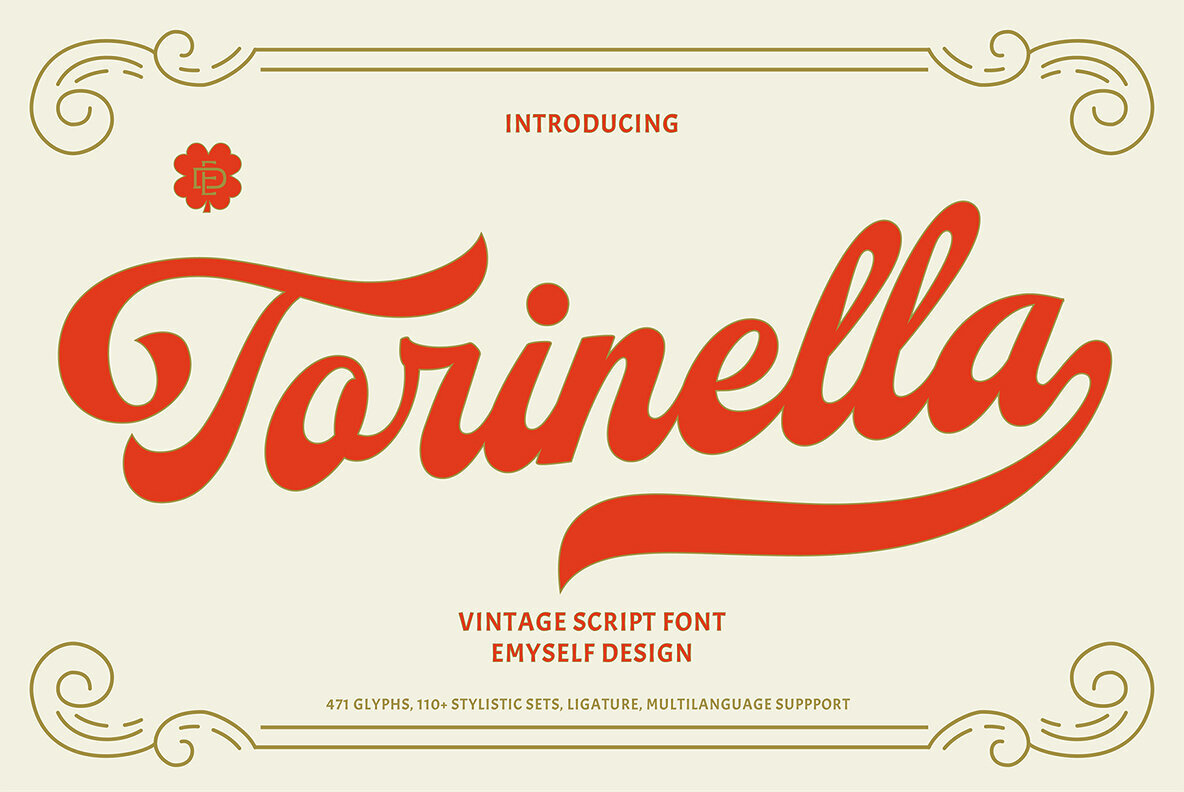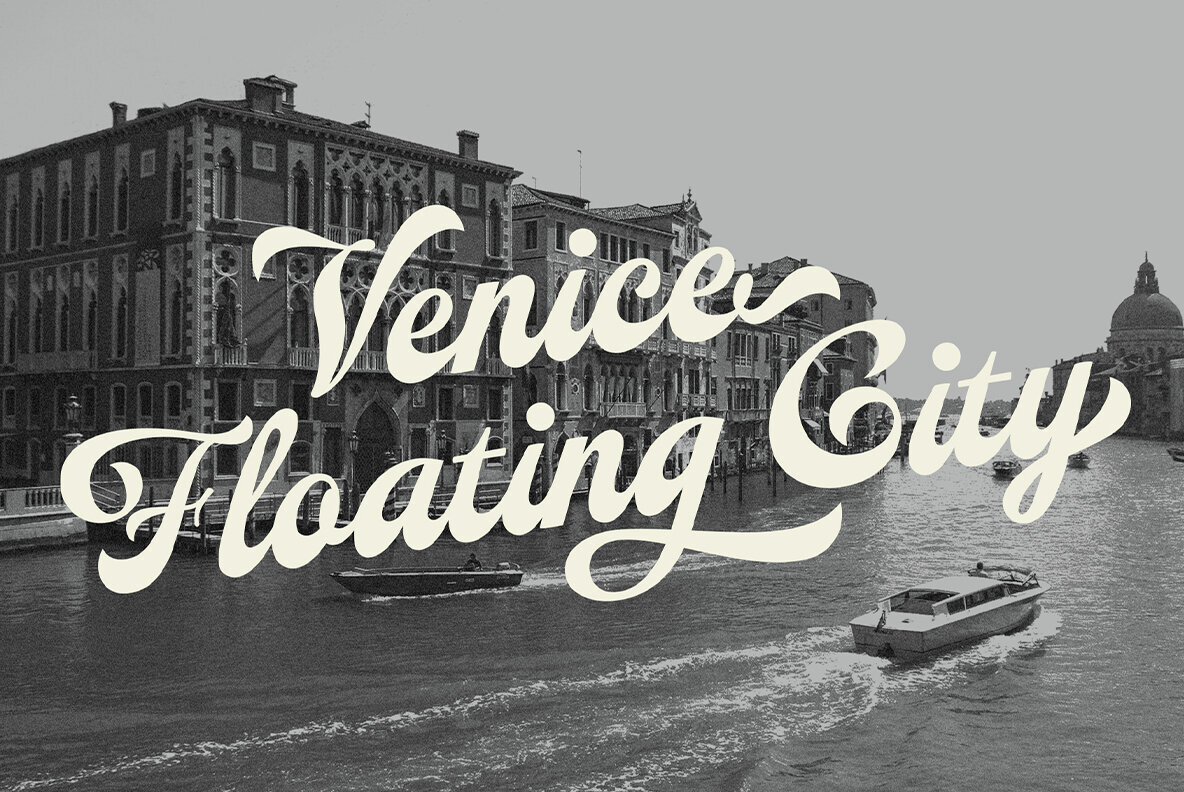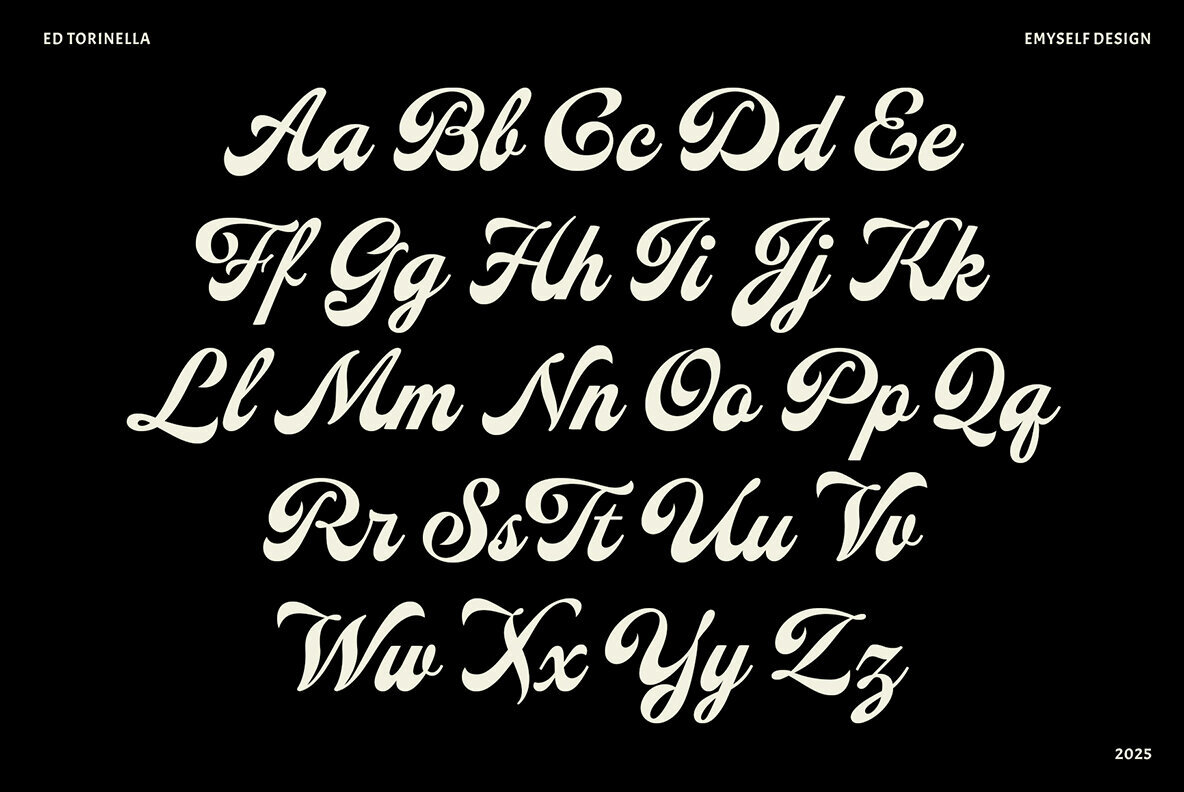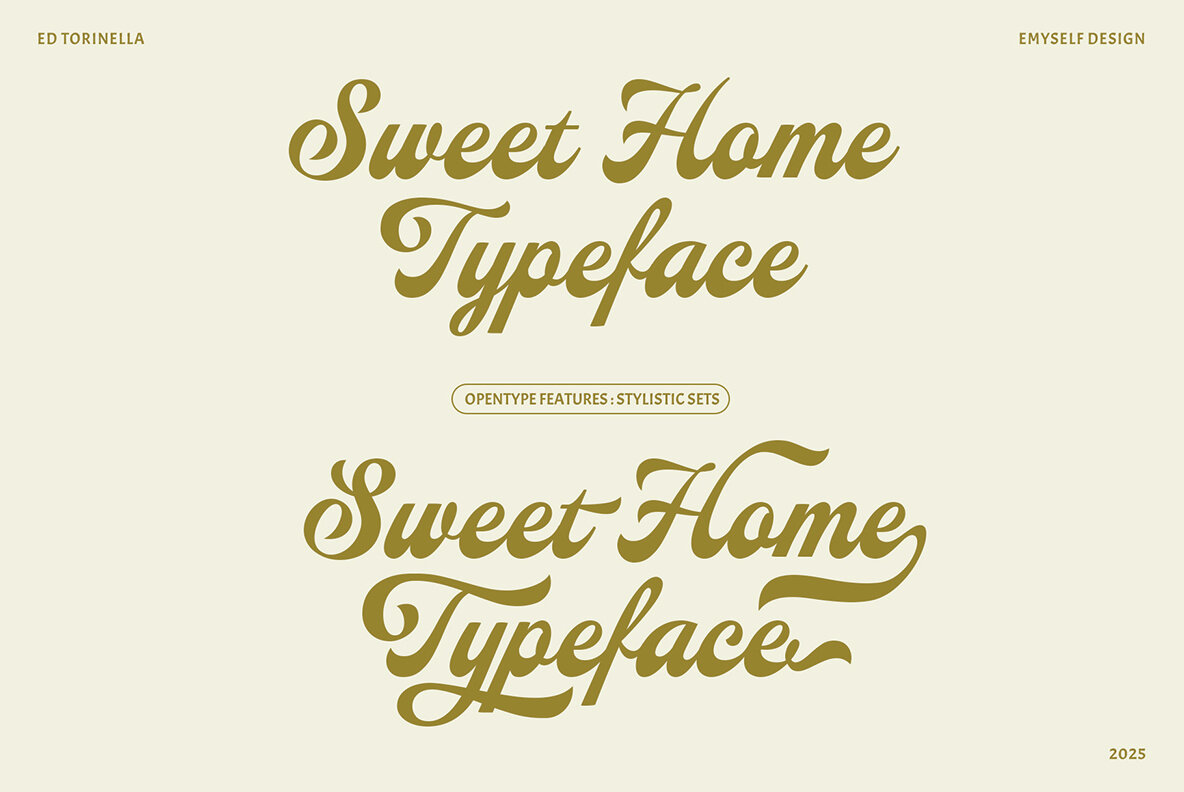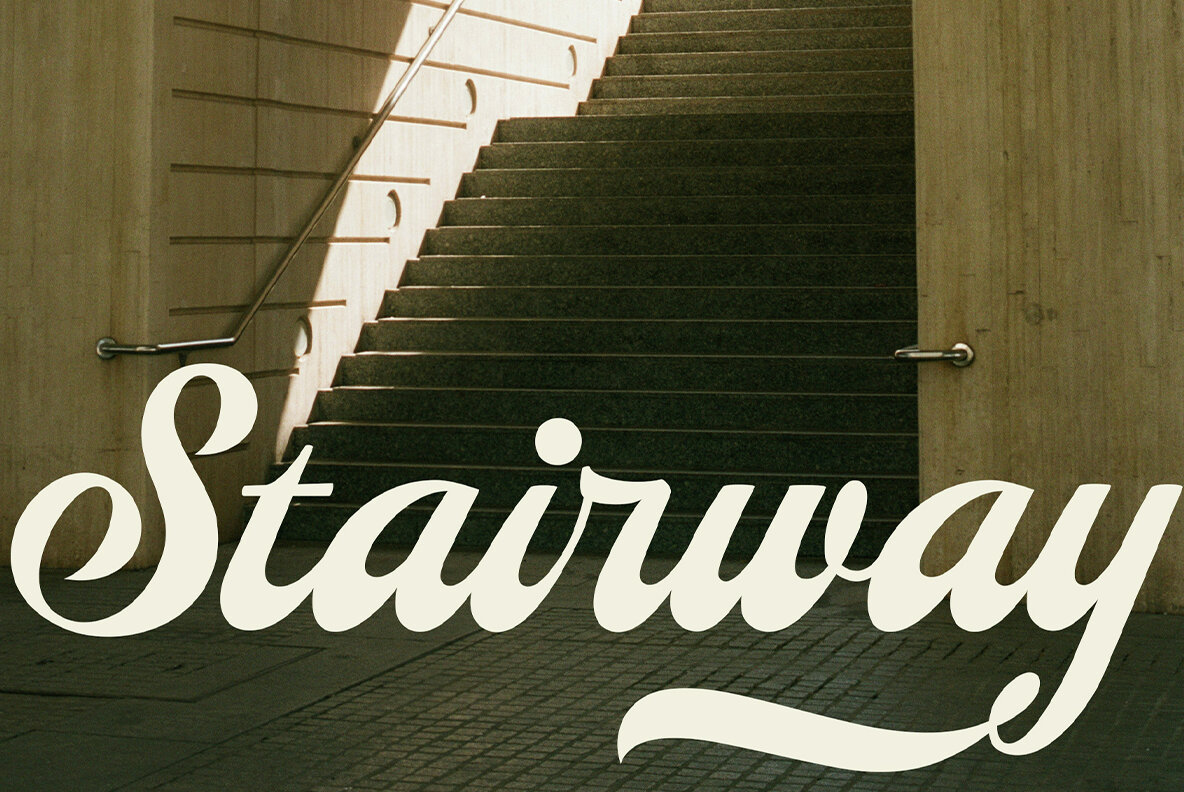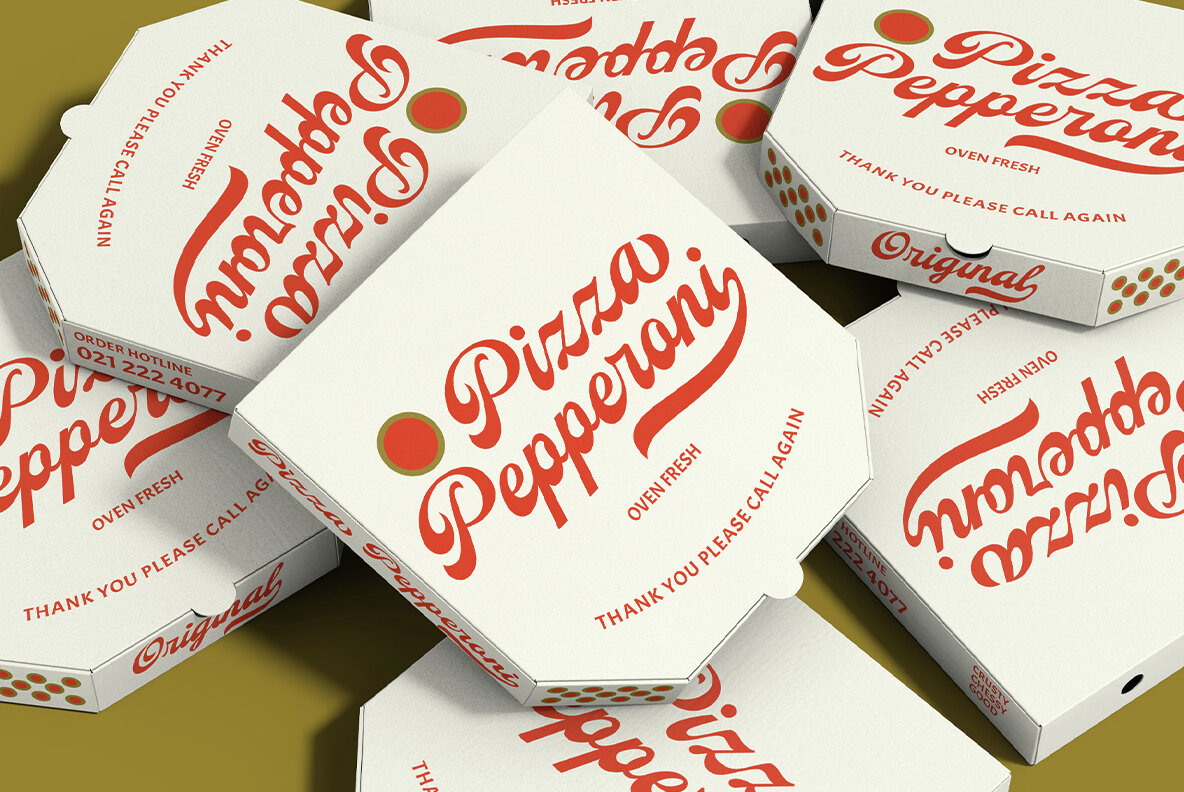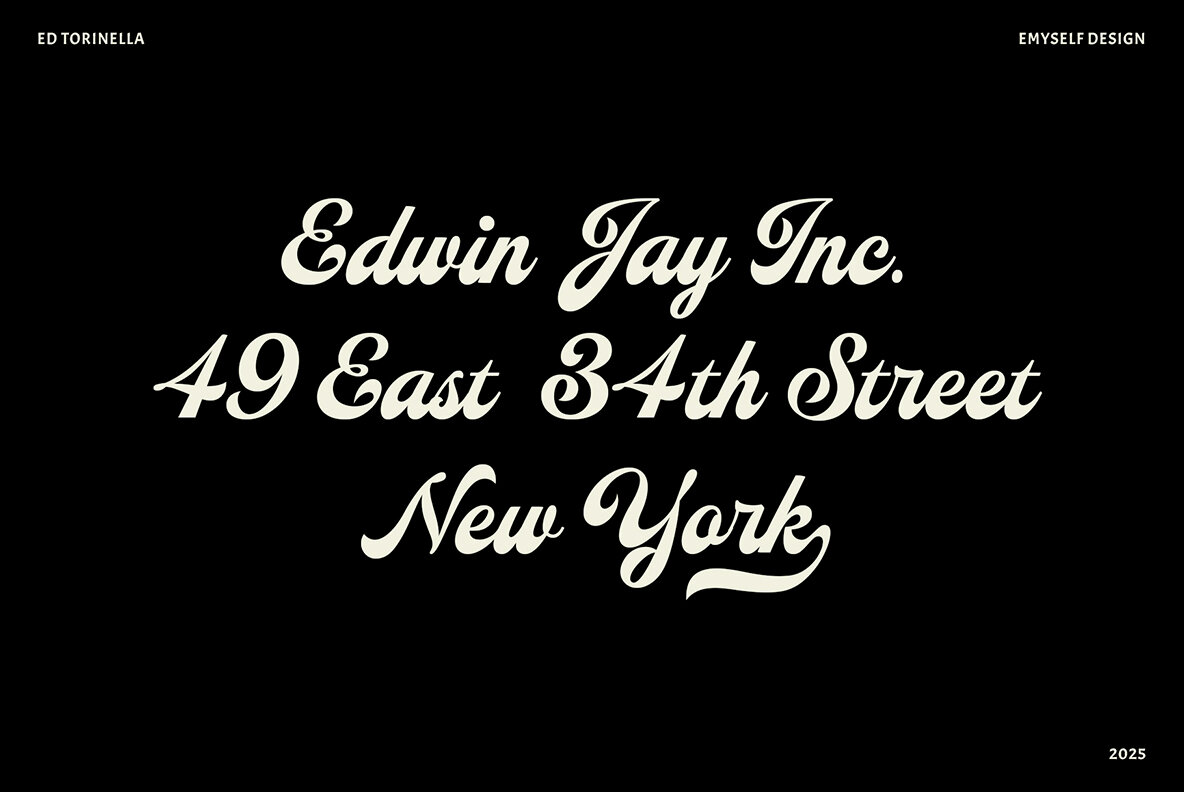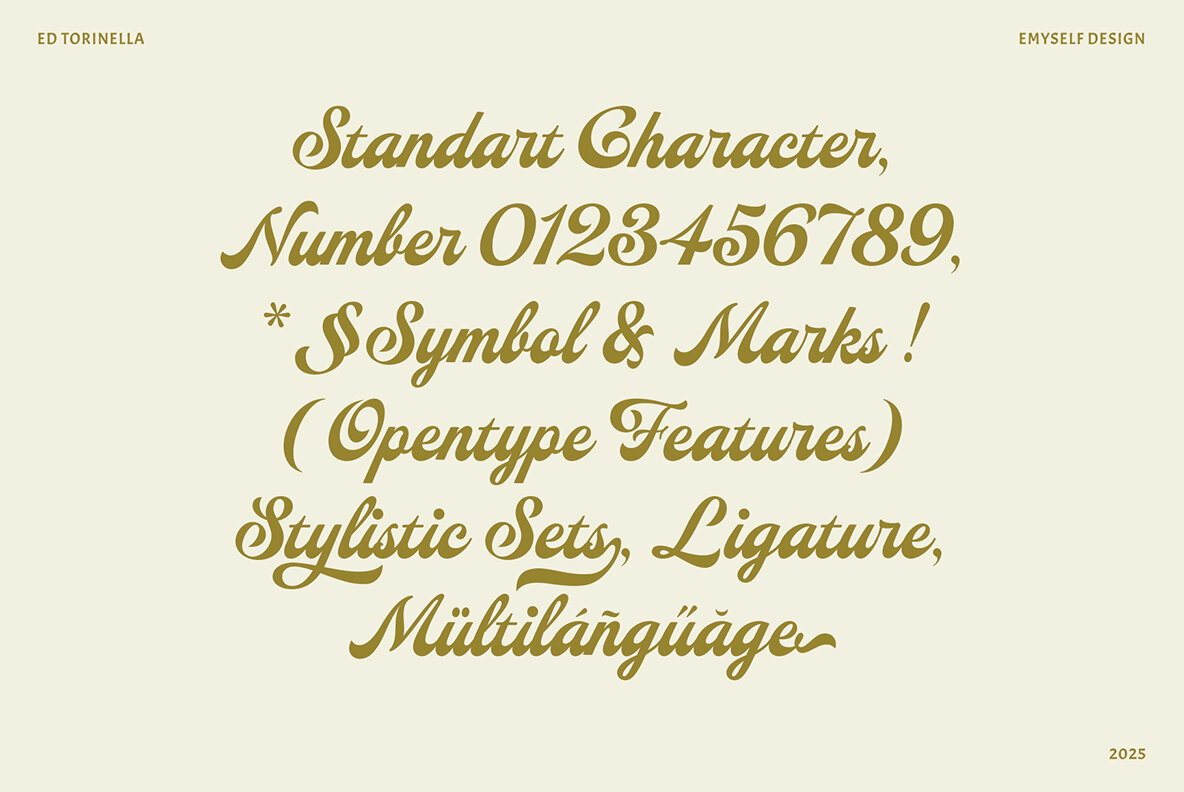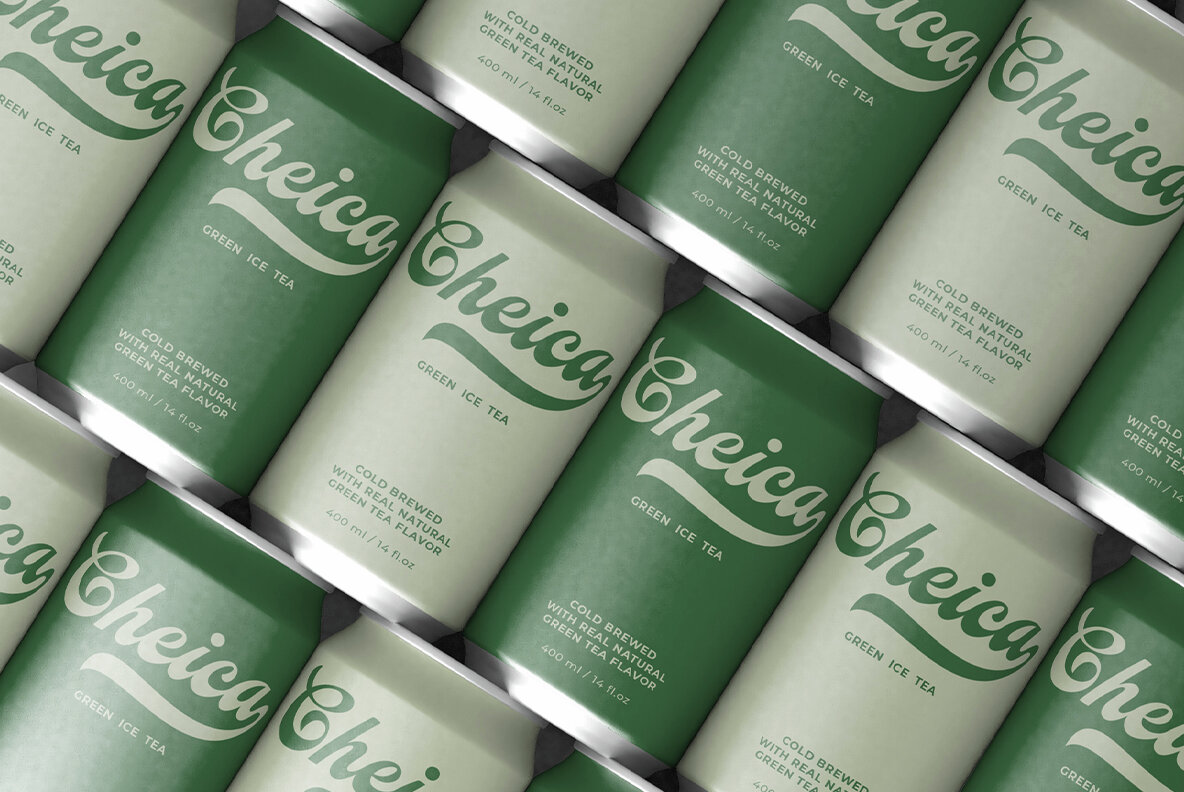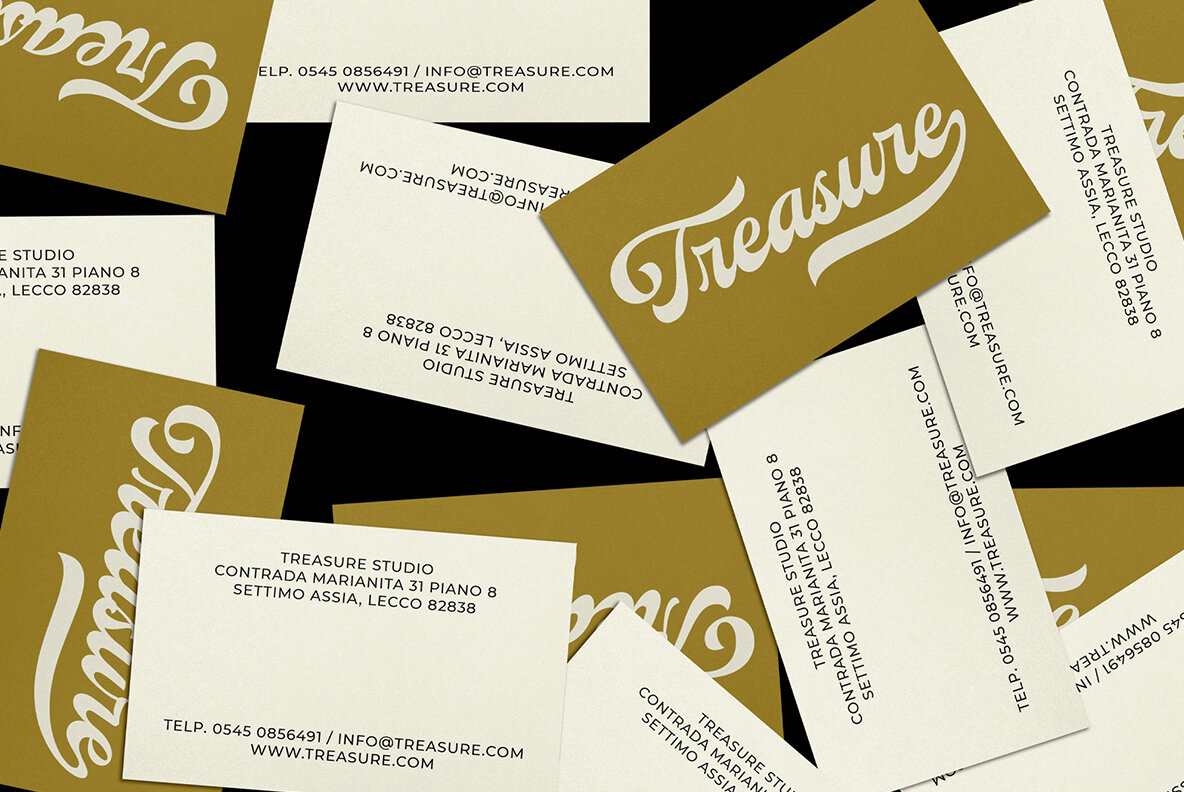
ED Torinella Font
ED Torinella Regular
ED Torinella stands out as a bold, charismatic vintage script font, designed to make an impression. Its thick, flowing strokes coupled with elegant curves reflect the essence of retro signage and handcrafted lettering. With this font, you're offered a harmonious blend of nostalgic charm and modern utility. Boasting over 471 glyphs, along with 110+ stylistic alternates, ligatures, and multilingual support, ED Torinella provides unparalleled typographic customization, allowing for personalized expression in your projects. Perfect for logo designs, apparel prints, branding headlines, or editorial titles, ED Torinella infuses your work with a strong, stylish presence.ED Torinella: A Vintage Script with Flair